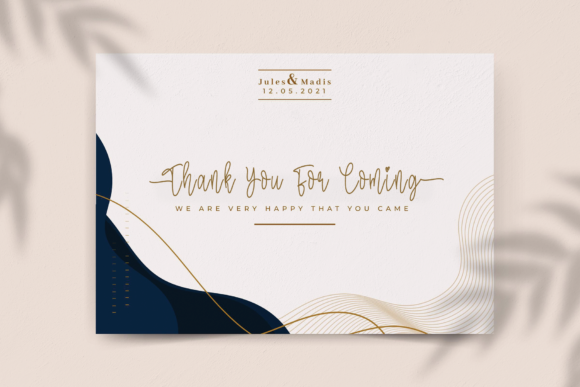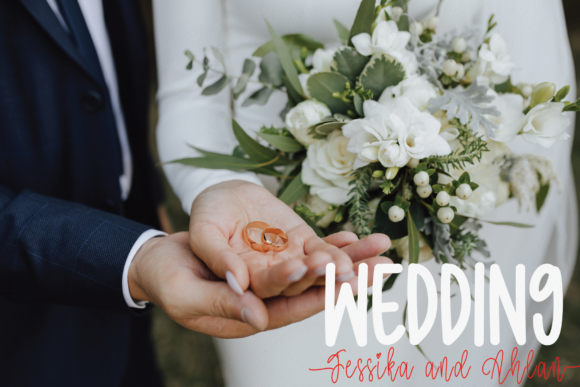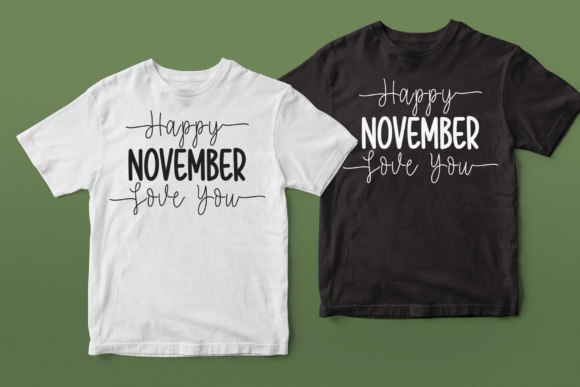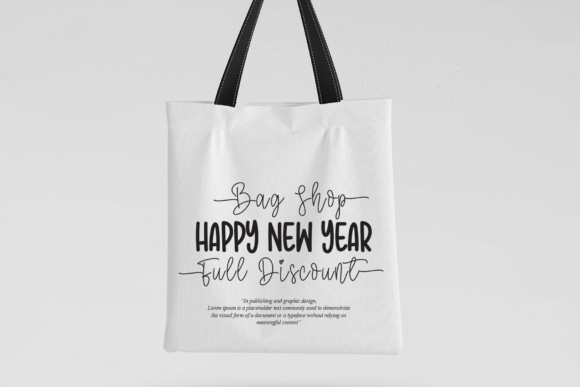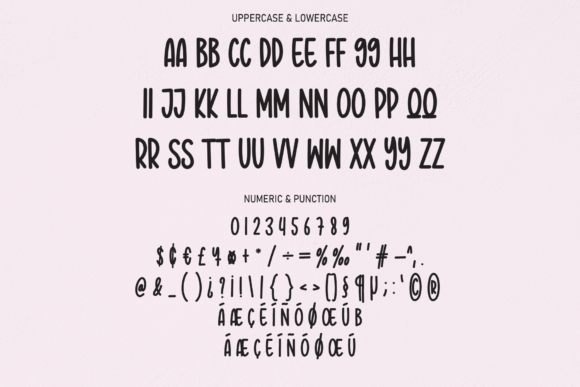
About Mandala Handmade Font
Mandala Handmade consists of two fonts designed to complement each other perfectly. Together or apart, these fonts are ideal for adding a chic and cheery touch to your crafts. This font is PUA encoded which means you can access all glyphs and swashes with ease!